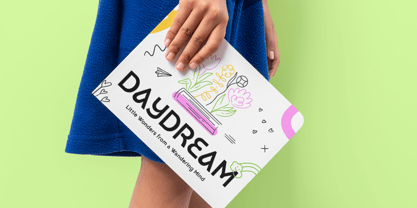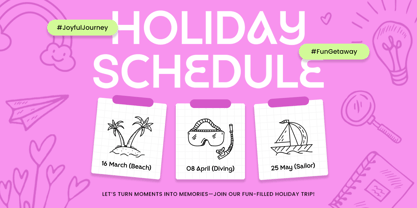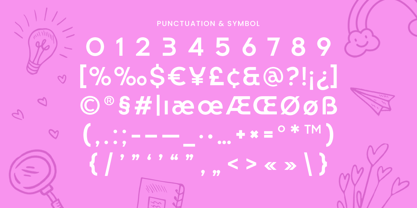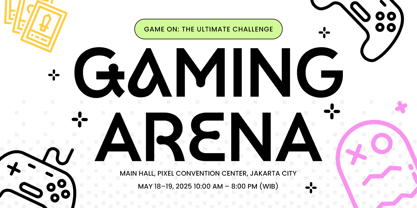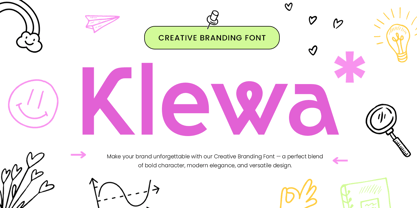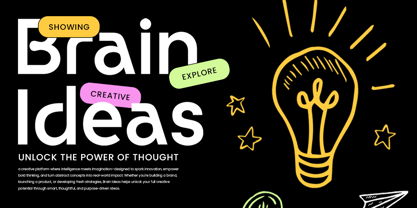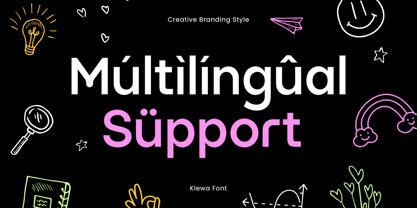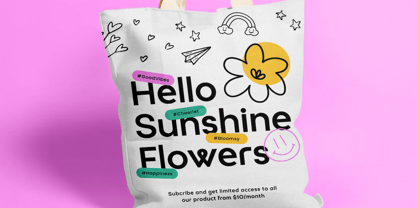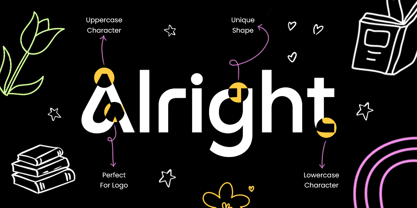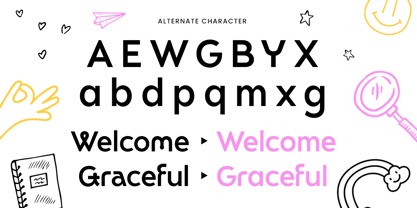
Klewa - Creative Branding Font
Klewa is a creative branding font designed to help your visual identity stand out with style and clarity. Featuring clean lines and bold character shapes, Klewa is perfect for logos, packaging, marketing materials, and modern digital platforms.
Its versatility makes it suitable for startups, personal brands, and creative agencies looking for a professional yet unique typeface. Klewa balances originality and readability, making every message feel intentional and on-brand.
Whether you're building a bold identity or refreshing a brand presence, Klewa offers a confident, polished voice.
Klewa – Creative Branding Font Features
Clean and bold modern letterforms
Available for the Alternate Characters
Ideal for logos, branding, marketing, and display use
Punctuation, numbers, and symbols included
Uppercase and lowercase letters
OpenType features for creative versatility
Multilingual support for
Afrikaans, Albanian, Asu, Basque, Bemba, Bena, Breton, Chiga, Cornish, Dutch, English, Estonian, Filipino, Finnish, Friulian, Galician, German, Gusii, Indonesian, Irish, Italian, Kabuverdianu, Kalenjin, Kinyarwanda, Luo, Luxembourgish, Luyia, Machame, Makhuwa-Meetto, Makonde, Malagasy, Manx, Morisyen, North Ndebele, Nyankole, Oromo, Portuguese, Quechua, Romansh, Rombo, Rundi, Rwa, Samburu, Sango, Sangu, Scottish Gaelic, Sena, Shambala, Shona, Soga, Somali, Spanish, Swahili, Swedish, Swiss, and more.
Make your mark with Klewa — a bold creative font that brings your brand vision to life.